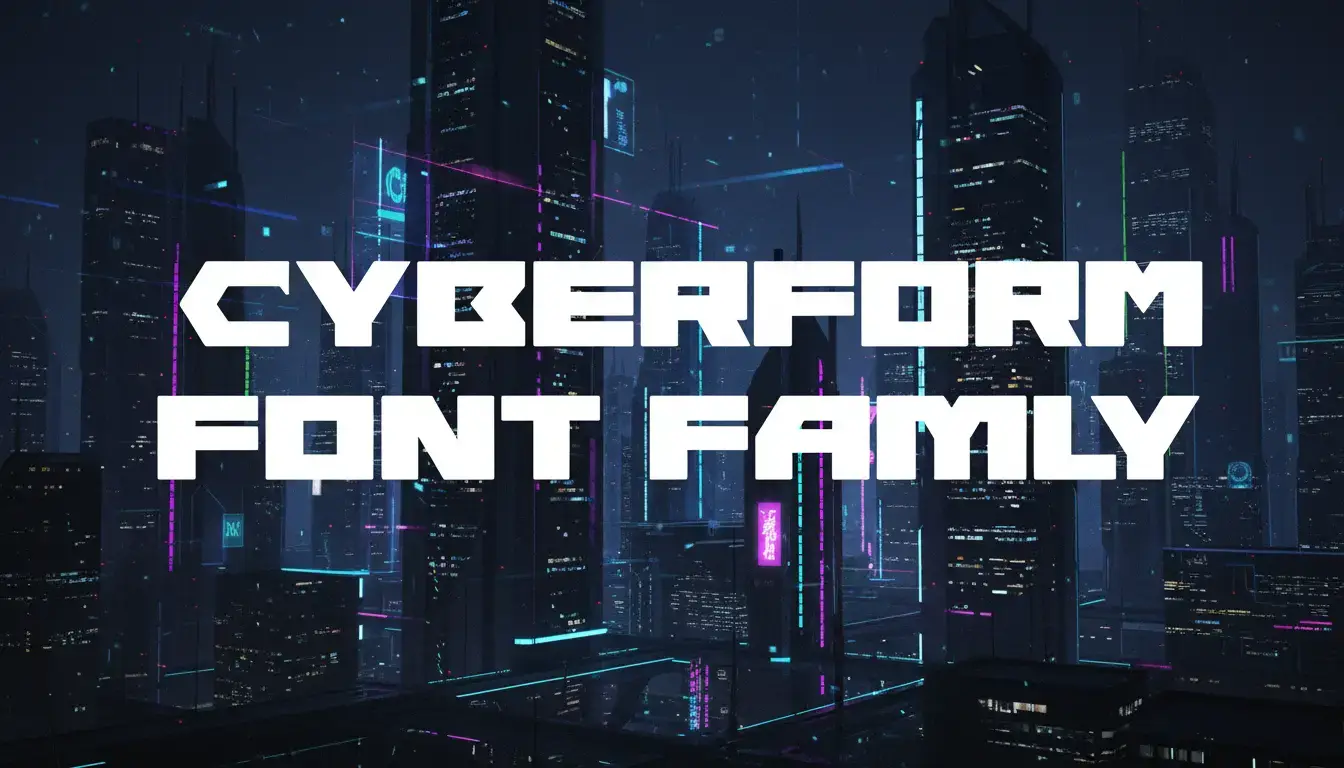
Cyberform Font
Cyberform Font Preview
Cyberform
Cyberform is a techno font made by Daniel Zadorozny. Its angular, engineered shapes look right at home on screens and tech products. You can download it for free and test it with your own words in the preview above.
What You Can Type With Cyberform
Cyberform covers the full alphabet in upper and lowercase, plus all ten numbers, so you can set names, dates and prices without switching fonts. Common punctuation such as &, !, ? and @ is included as well. It also has the accented letters you need for Spanish, French, German, Portuguese and Italian.
Where Cyberform Works Best
Designers usually reach for fonts like Cyberform when they're making gaming logos, tech branding and futuristic posters. Try it on a dark background with a bright accent color for a sharp, modern look.
Does Cyberform support accented letters?
Yes. Cyberform includes the accented letters needed for Spanish, French, German, Portuguese and Italian, so it works for more than just English.
What fonts pair well with Cyberform?
A simple sans serif like Roboto keeps longer text easy to read next to it.